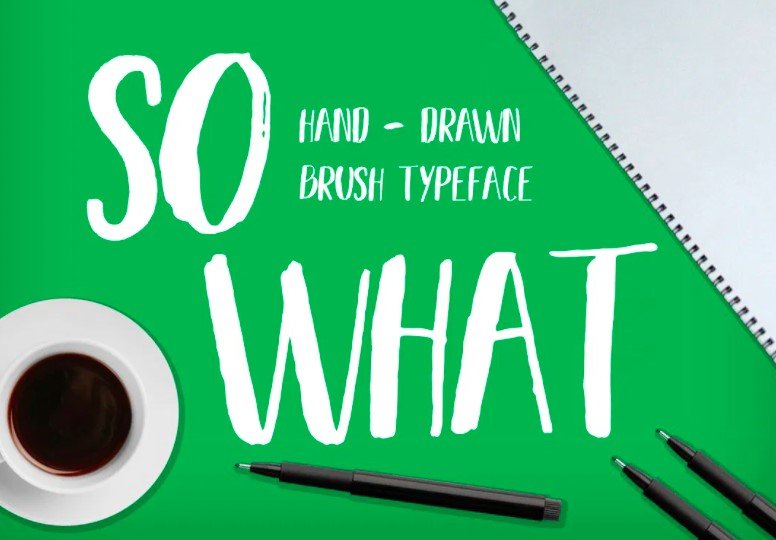
It has natural handwritten textures that look beautiful as a real handmade design. The typeface is suitable to use in making posters, banners, t-shirts, and
If you're a fan of brushed typefaces, then you'll be delighted with the font we're about to introduce. It's called So What Brush Font, boasting a stunning and impeccably stylish texture. This exquisite typeface was designed by The Luminos Pil, who generously made it available for free for all graphic designers.
It has natural handwritten textures that look beautiful as a real handmade design. The typeface is suitable to use in making posters, banners, t-shirts, and other typographic works.